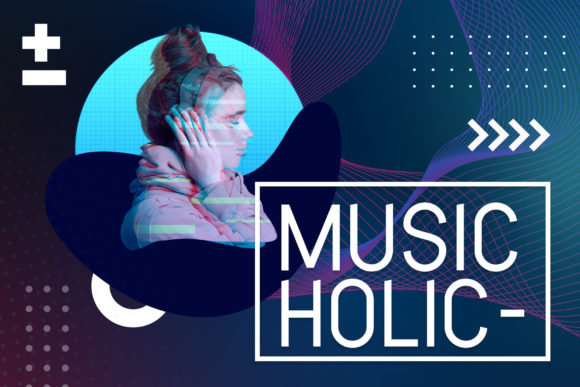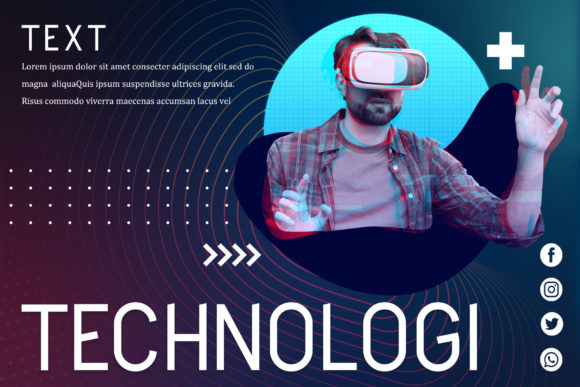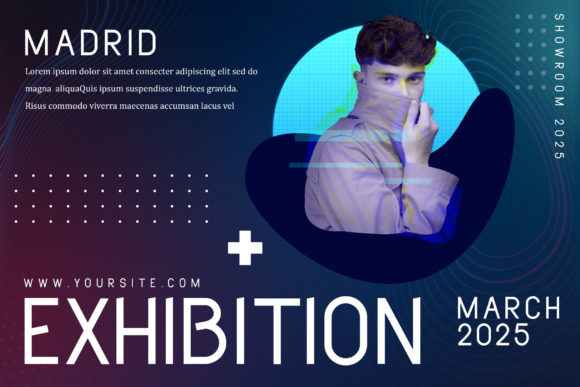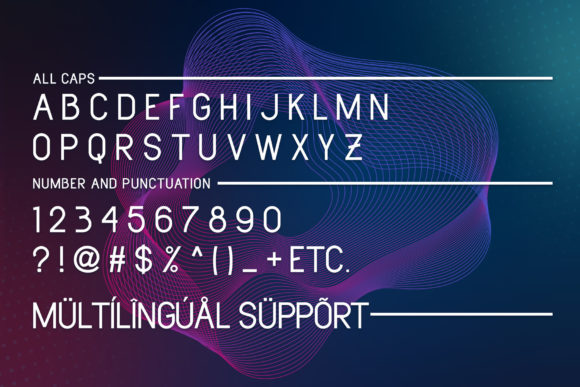
The Alveru Font: A Designer’s New Best Friend
I still remember the frustration of working on a project, hours poured into every detail, and then getting stuck on one thing: finding the perfect font. My client wanted something modern, clean, and versatile. I scoured the internet, tried countless fonts, but nothing seemed quite right. That was until I stumbled upon the Alveru font. It’s a minimal and neat sans serif font that’s been a game-changer for my designs. In this article, I’ll share my experience with Alveru, its features, and how to make the most of it in your creative projects.
An Honest Review of Alveru Font
What I Love About Alveru ✨
• Versatility: Alveru can easily be matched to an incredibly large set of projects. Whether you’re working on a website, a logo, or a brochure, this font adapts seamlessly.
• Readability: The clean lines and sans serif design make Alveru highly readable, even at small sizes.
• Modern Aesthetic: It has a contemporary feel that instantly elevates the look of any design.
While Alveru is an excellent font, it’s not without its quirks. For instance:
• ⚠️ Limited Emphasis: Alveru doesn’t have a wide range of weights or styles, which might limit its use in projects requiring a lot of emphasis or hierarchy.
• ⚠️ Glyph Support: While it supports a wide range of languages, some users have noted that the glyph support could be more extensive.
Alveru supports OpenType features, which can enhance your typography. For example, you can access stylistic alternates or ligatures through the font menu in compatible applications like Adobe Photoshop or Illustrator. Experimenting with these features can add a unique touch to your designs.
The Backstory of Alveru Font
The Alveru font was designed with versatility in mind. Its creator aimed to produce a font that could seamlessly integrate into a wide range of projects, from digital interfaces to print materials. Inspired by modern design trends and the need for clean, readable typography, Alveru has become a favorite among designers and hobbyists alike.
Q: Is Alveru suitable for body text?
A: Yes, Alveru is highly readable and can be used for body text, especially in digital formats.
Q: Does Alveru support multiple languages?
A: Alveru supports a wide range of languages, but it’s always best to check the specific character set to ensure it covers your language needs.
Q: Can I use Alveru in both print and digital projects?
A: Absolutely! Alveru’s versatility makes it suitable for both print and digital applications.